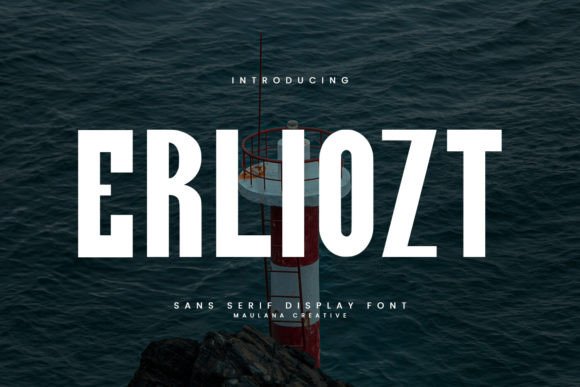
Erliozt Font: A Bold and Modern Typeface for Stunning Designs
In the world of typography, fonts play a crucial role in conveying messages, expressing emotions, and creating a lasting impression. Among the numerous font styles available, Erliozt has gained significant attention for its bold and modern design. Erliozt is a sans serif font that boasts clean lines, simple design, and a sleek appearance, making it perfect for headlines, posters, logos, and various design projects.
What is Erliozt Font?
Erliozt is a bold and modern font style that stands out with its clean lines and simple design. Itβs perfect for making a statement in headlines, posters, or logos. With its sans serif style, Erliozt gives a sleek and contemporary feel to any project. The font’s design is characterized by its geometric shapes, balanced proportions, and a distinct lack of decorative elements, making it highly legible and versatile.
Key Features of Erliozt Font
- Bold and Modern Design: Erliozt’s bold and modern design makes it perfect for attention-grabbing headlines, titles, and slogans.
- Clean Lines and Simple Design: The font’s clean lines and simple design ensure that it remains legible even at smaller font sizes.
- Sans Serif Style: Erliozt’s sans serif style gives it a sleek and contemporary feel, making it suitable for a wide range of design projects.
- Geometric Shapes and Balanced Proportions: The font’s geometric shapes and balanced proportions contribute to its modern and visually appealing design.
- High Legibility: Erliozt’s design ensures high legibility, making it perfect for use in body text, headlines, and titles.
Using Erliozt Font in Design Projects
Erliozt’s versatility and modern design make it suitable for a wide range of design projects, including:
- Headlines and Titles: Use Erliozt to create bold and attention-grabbing headlines and titles that make a statement.
- Posters and Flyers: Erliozt’s clean design and bold style make it perfect for posters and flyers that require a modern and eye-catching look.
- Logos and Branding: The font’s sleek and contemporary feel makes it suitable for logos and branding projects that require a modern and professional look.
- Digital Media: Erliozt can be used in digital media, such as website headers, social media graphics, and mobile app designs.
Benefits of Using Erliozt Font
Using Erliozt font in design projects offers several benefits, including:
- Improved Readability: Erliozt’s clean design and simple style ensure high readability, even at smaller font sizes.
- Enhanced Visual Appeal: The font’s bold and modern design adds a touch of sophistication and elegance to any design project.
- Versatility: Erliozt’s sans serif style and geometric shapes make it suitable for a wide range of design projects.
- Professional Look: The font’s sleek and contemporary feel gives design projects a professional and modern look.
Tips and Tricks for Using Erliozt Font
To get the most out of Erliozt font, consider the following tips and tricks:
- Use it Boldly: Erliozt’s bold design makes it perfect for headlines and titles. Use it boldly to make a statement.
- Experiment with Colors: The font’s simple design allows it to work well with a variety of colors. Experiment with different colors to find the perfect combination.
- Pair it with Other Fonts: Erliozt can be paired with other fonts to create a unique and visually appealing design.
- Consider Font Size: Make sure to adjust the font size according to the design project. Erliozt can be used at smaller font sizes, but it’s also effective at larger sizes.
In conclusion, Erliozt font is a bold and modern typeface that offers a sleek and contemporary feel to any design project. Its clean lines, simple design, and geometric shapes make it perfect for headlines, posters, logos, and various design projects. With its high legibility, versatility, and professional look, Erliozt is an excellent choice for designers looking to make a statement.